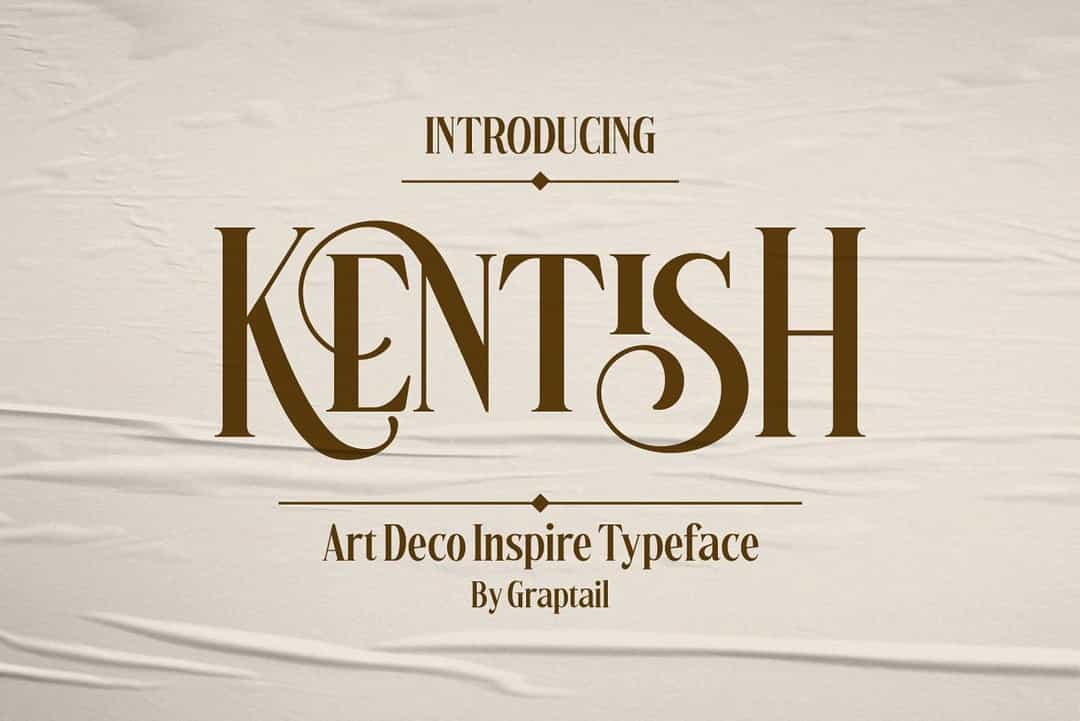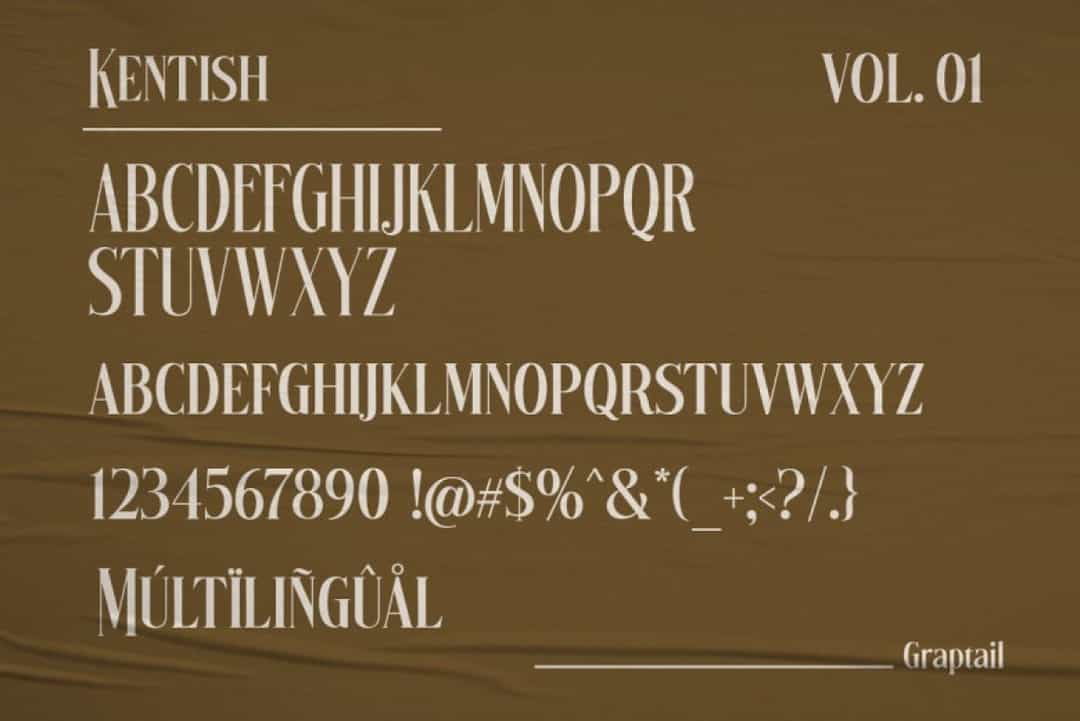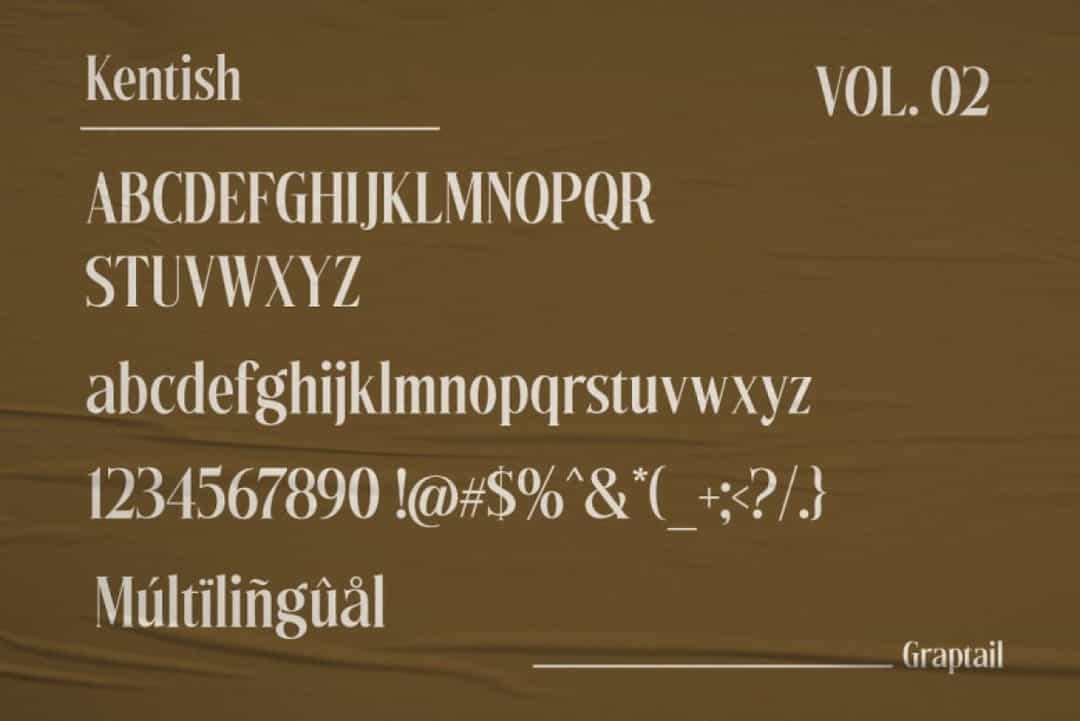
Kentish Serif Typefacesare exquisite fonts that add an air of sophistication and class to any design. While their inspiration comes from Art Deco design principles, Kentish continues to look modern and contemporary due to its many stylistic variations and ligatures that make this serif typeface highly adaptable.